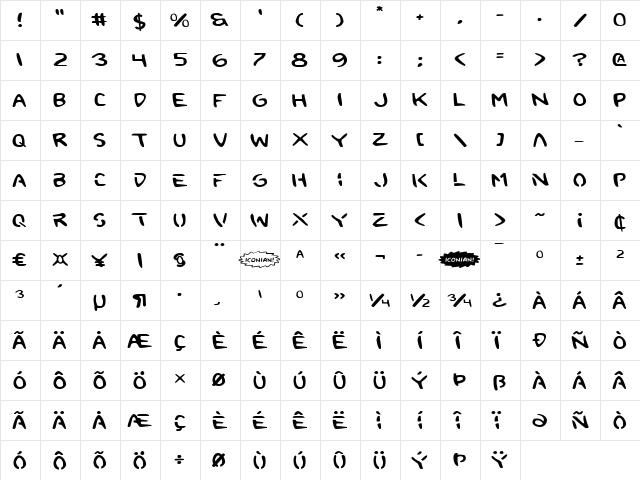
2Toon Expanded Expanded
Design Context for 2Toon Expanded Typeface
2Toon Expanded is a composed and adaptable typeface that performs quietly and consistently across a wide range of design contexts.
Pro Tip: Use 2Toon Expanded in both headline and body roles to test its range before committing to a single application.